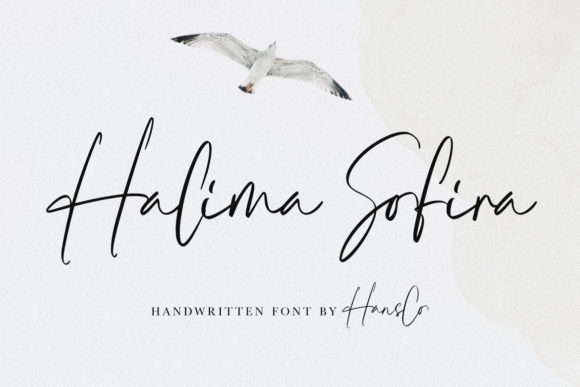
Introducing Halima Sofira Font, the exquisite handwritten font masterpiece from the renowned HansCo. Immerse yourself in a world of elegance and sophistication as you explore the captivating charm of this meticulously crafted script. Halima Sofira is not just a font; it's an expression of artistry, a reflection of your unique style and taste.
With its graceful curves, whimsical strokes, and a touch of vintage allure, Halima Sofira Font breathes life into your designs. Its delicate beauty adds an enchanting personal touch to wedding invitations, greeting cards, logos, and so much more. Imagine your words dancing across the page, imbued with the charm and authenticity of handwritten elegance.
Halima Sofira Font isn't just aesthetically pleasing; it's also incredibly versatile. Its remarkable adaptability makes it the perfect choice for a wide range of projects, from heartfelt letters to eye-catching marketing materials. Its presence elevates your designs, infusing them with a timeless appeal that captivates and resonates with your audience.
But what truly sets Halima Sofira Font apart is its remarkable readability, especially in small web text. Its carefully crafted characters maintain their clarity and distinctiveness even at the smallest sizes, ensuring that your message is conveyed with crystal-clear precision. Your website visitors and readers will appreciate the effortless readability, enhancing their user experience and leaving a lasting impression.